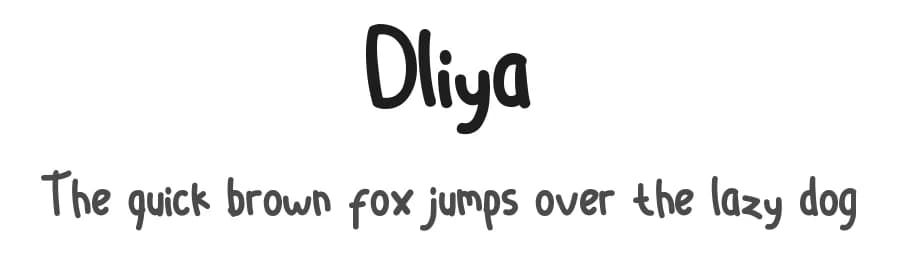
About Dliya Font
Dliya is a script & handwritten font designed by Rzky Cnra Studio. It includes 95 glyphs, a regular weight, TTF (TrueType) format, and 104 languages. Dliya is free to download; check the license details on this page before commercial use. Script & handwritten fonts like Dliya work best for wedding invitations, greeting cards, signatures, and elegant branding.
Dliya Font is a script font that shines as a display or heading face. Pair it with a clean sans-serif or serif font for body text β the contrast creates a clear hierarchy while the two styles stay balanced and easy to read.
Dliya Font
Dliya Font is a script handwritten typeface by Rzky Cnra Studio, ideal for logos, invitations, branding, and creative projects.